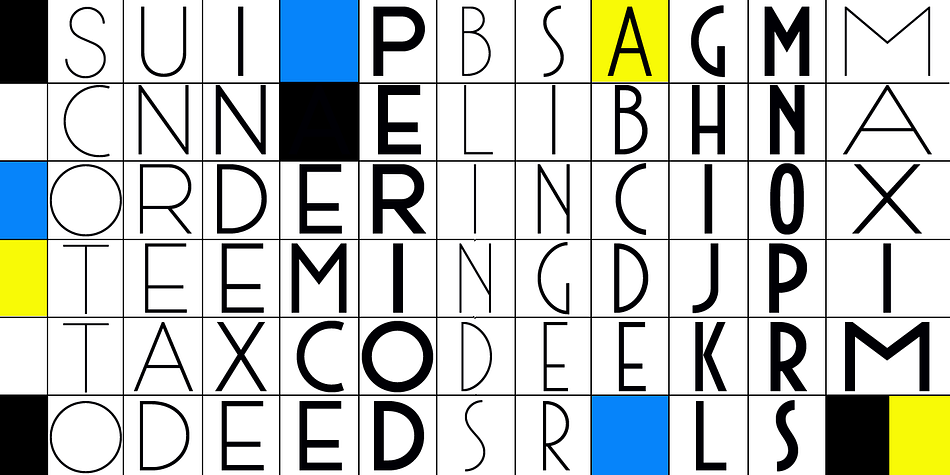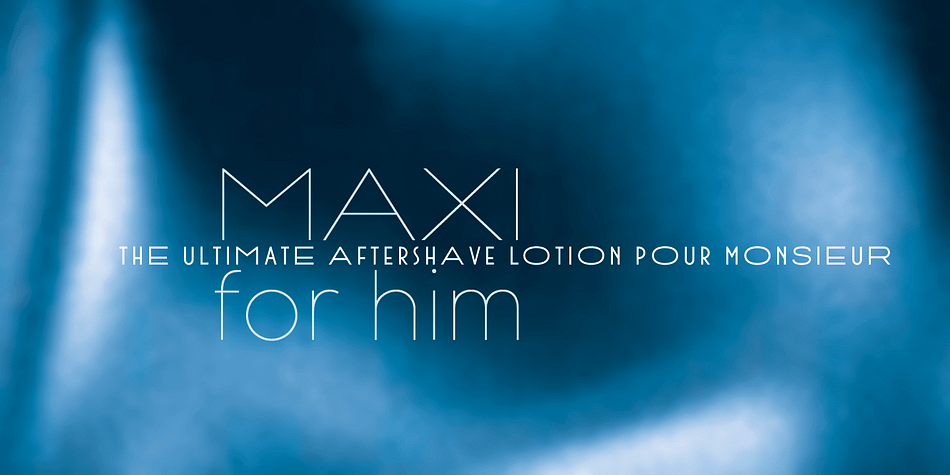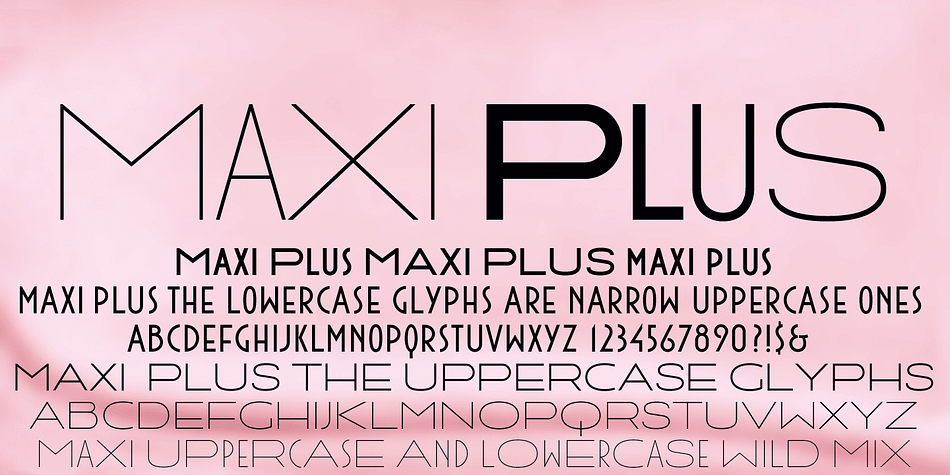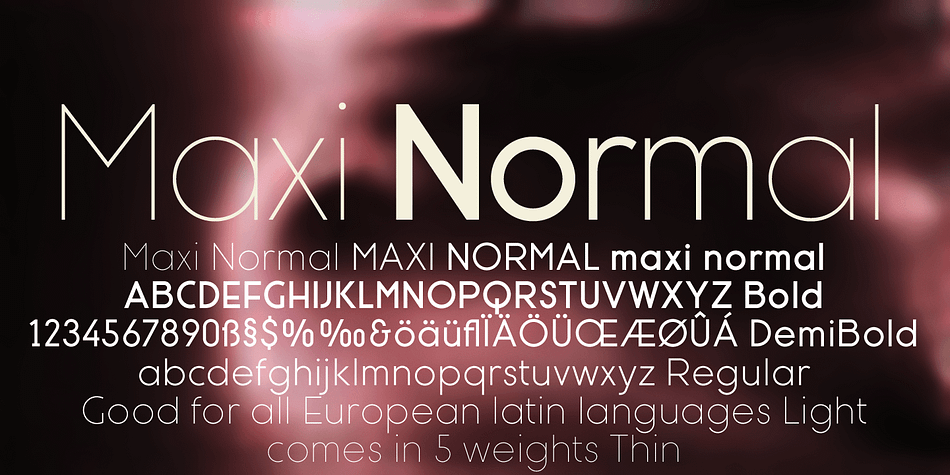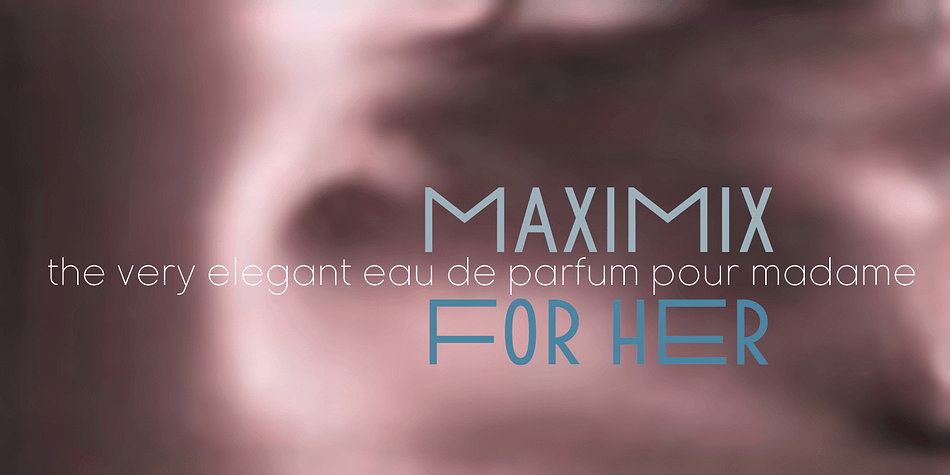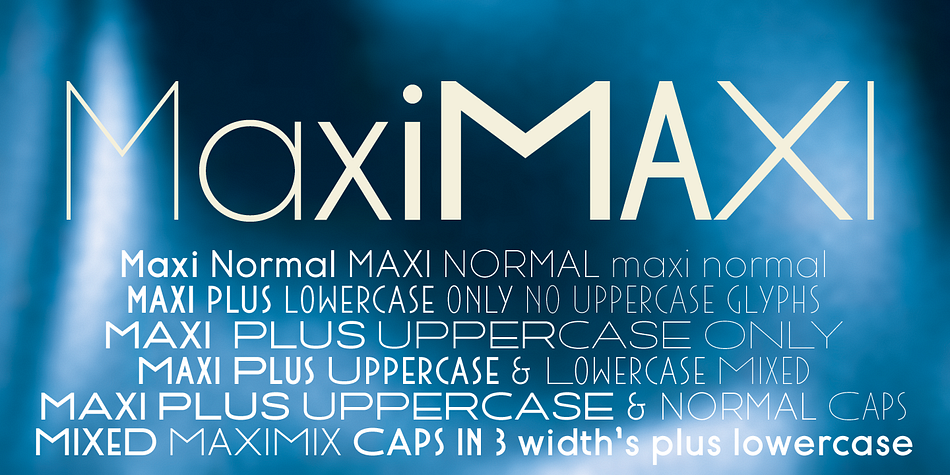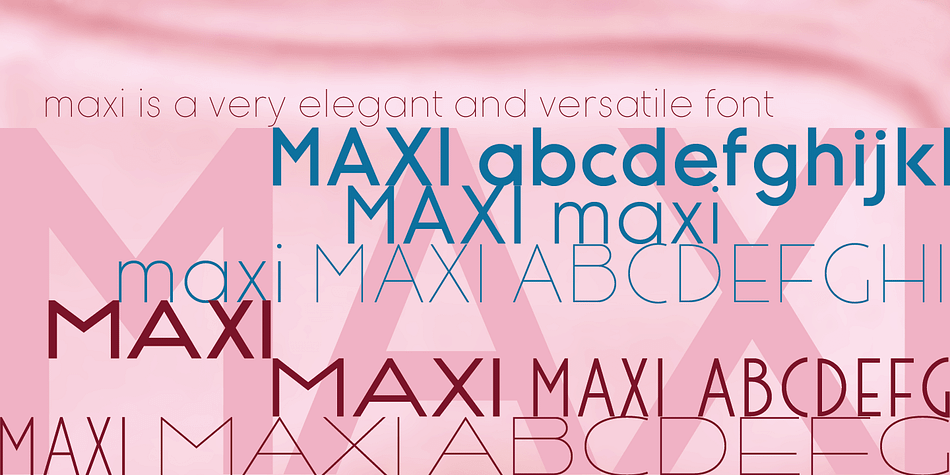
Designed by Gert Wiescher, Maxi is a sans serif and display sans font family. This typeface has ten styles and was published by Wiescher-Design.
A french linear, geometric, sans serif typeface.
Designer | Gert Wiescher |